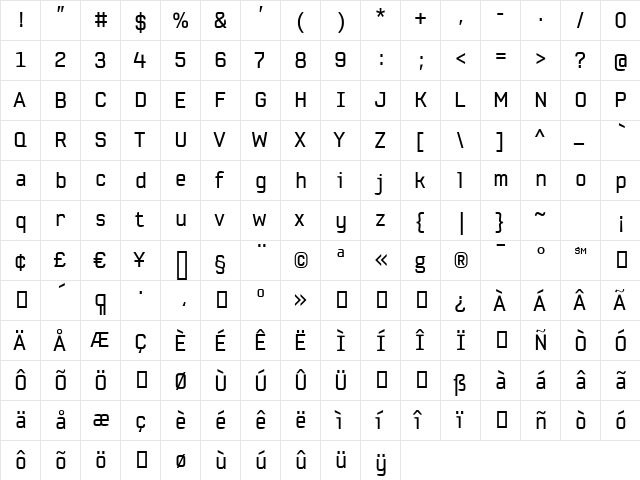
EAS Sans Regular
Design Context for EAS Sans Typeface
EAS Sans is a composed and adaptable typeface that performs quietly and consistently across a wide range of design contexts.